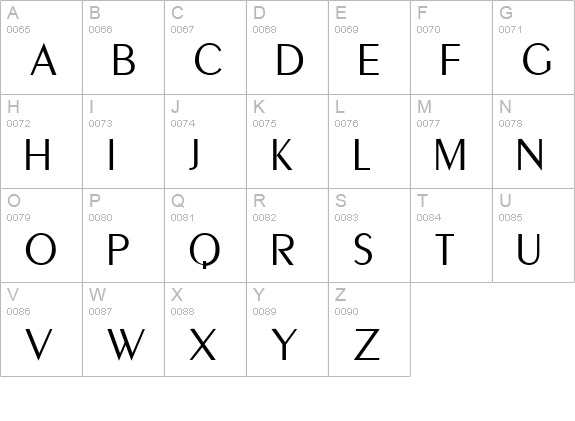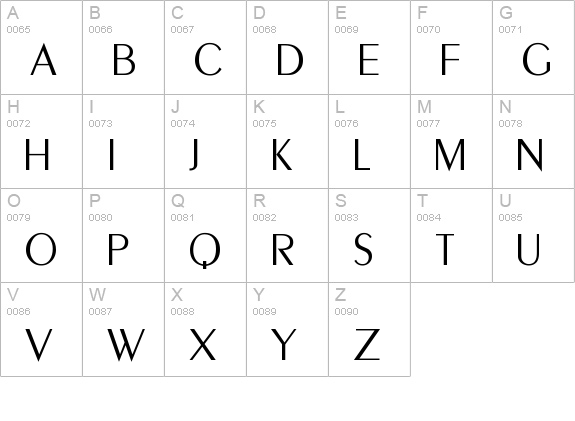
Piano Regular Font Details
Piano Regular is the standard, neutral variant in the Piano typeface family \xE2\x80\x94 well suited to general body text, paragraphs, and standard typographic work.
Piano Regular font is a versatile and elegant typeface that adds a touch of sophistication to any design project. Its clean and classic lines make it perfect for a wide range of applications, from branding materials to editorial layouts. With its balanced letterforms and smooth curves, Piano Regular exudes a sense of harmony and grace. This font is not only visually appealing, but it also offers fantastic legibility, ensuring that your message is easily understood by your audience. Whether you're designing a logo, creating a poster, or crafting a website, Piano Regular will make your text stand out with its timeless beauty. What's even better is that Piano Regular font is available for free download at FontsMarket.com. Yes, you heard it right - it's completely free! This means that you can now access this exquisite font without any cost, making it a valuable asset for both personal and commercial projects. So don't miss out on the opportunity to enhance your designs with the elegance and versatility of Piano Regular font. Download it for free at FontsMarket.com and elevate your creations to a whole new level of sophistication.